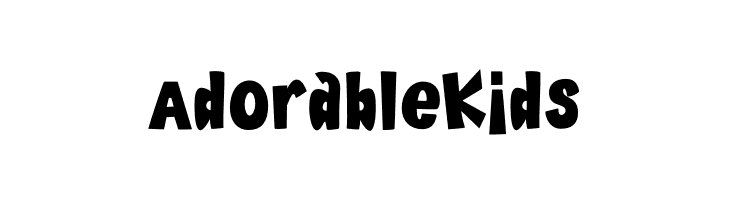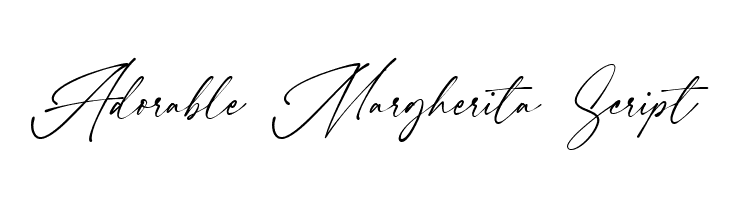
A playful, bold, and hand-drawn font with a childlike charm.
A graceful and sophisticated script font with flowing, interconnected letters.
A playful, handwritten font with rounded, consistent strokes and a casual, friendly appearance.
A modern, handwritten script font with smooth, connected strokes.
A playful, bold font with rounded, chunky letters and a whimsical touch.
A cursive, handwritten font with elegant curves and a decorative style.
A pixelated, monospaced font with a retro digital aesthetic.
Playful handwritten font with a whimsical style.
A decorative font with bold, outlined letters in textured circular backgrounds.